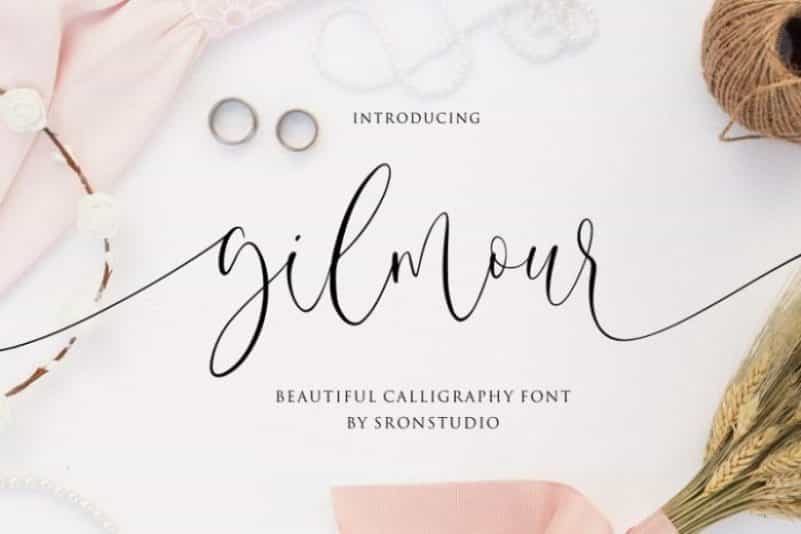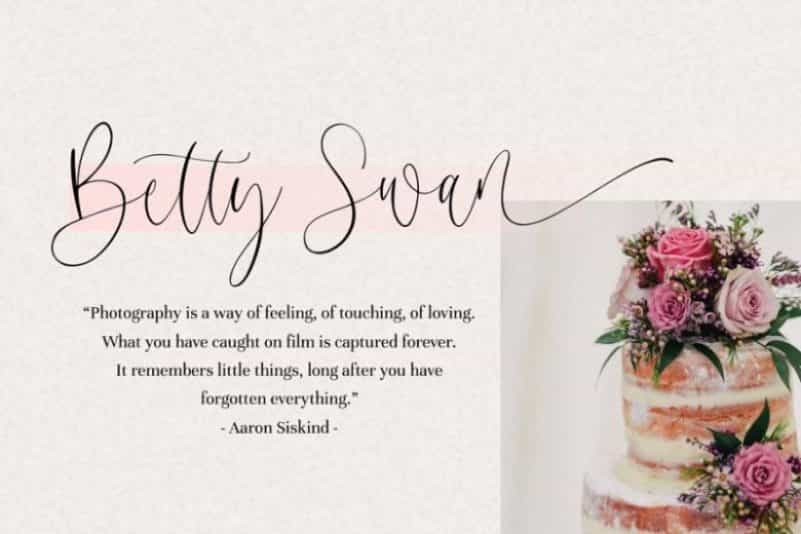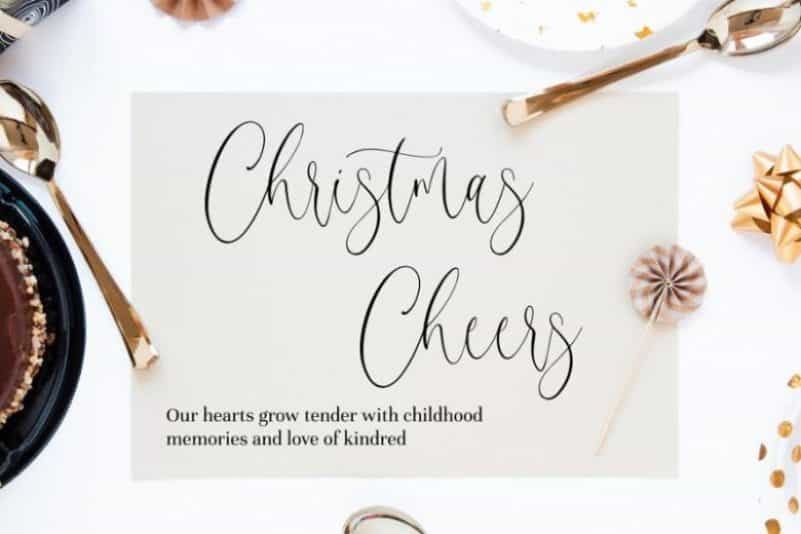
Gilmour Font is a beautiful modern calligraphy font that includes various kinds of alternate that will make designing Instagram quotes, websites, and more. It has been created and posted by Sronstudio. Gilmour Calligraphy is a stunning calligraphy font suitable for branding, invitations, stationery, wedding designs, social media, advertisements, product packaging, product designs, labels, photos, watermarks, special occasions or any.